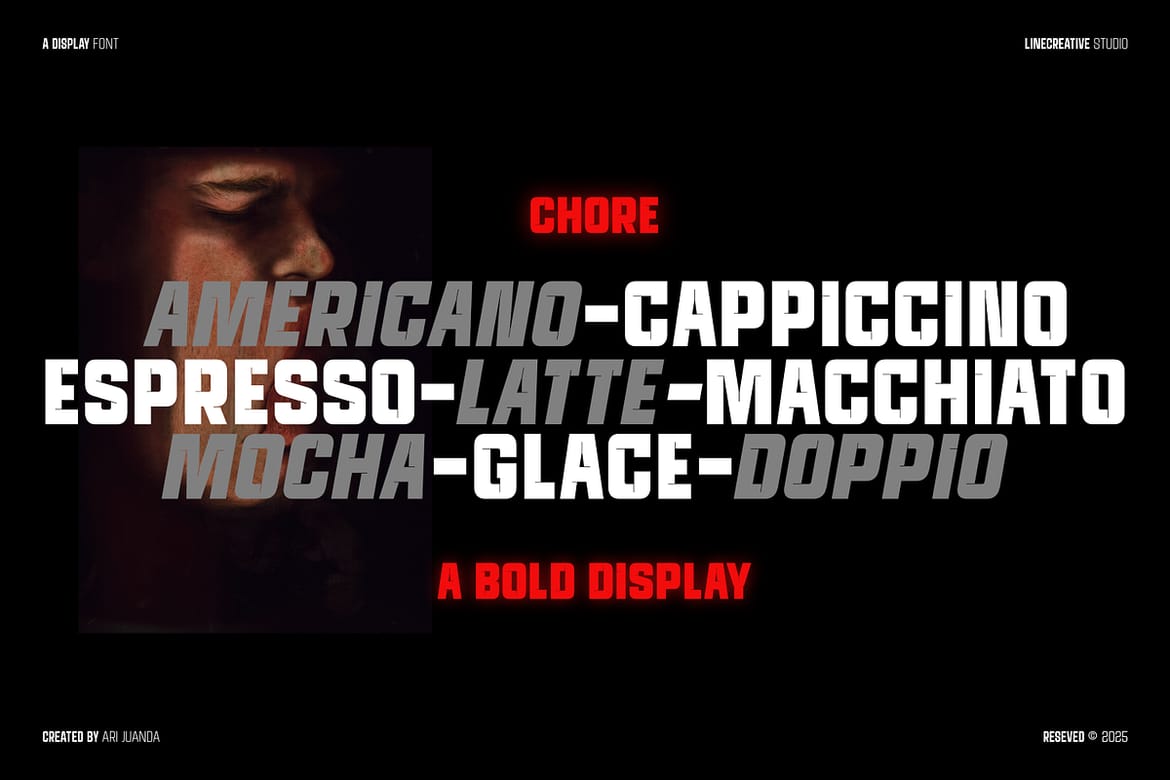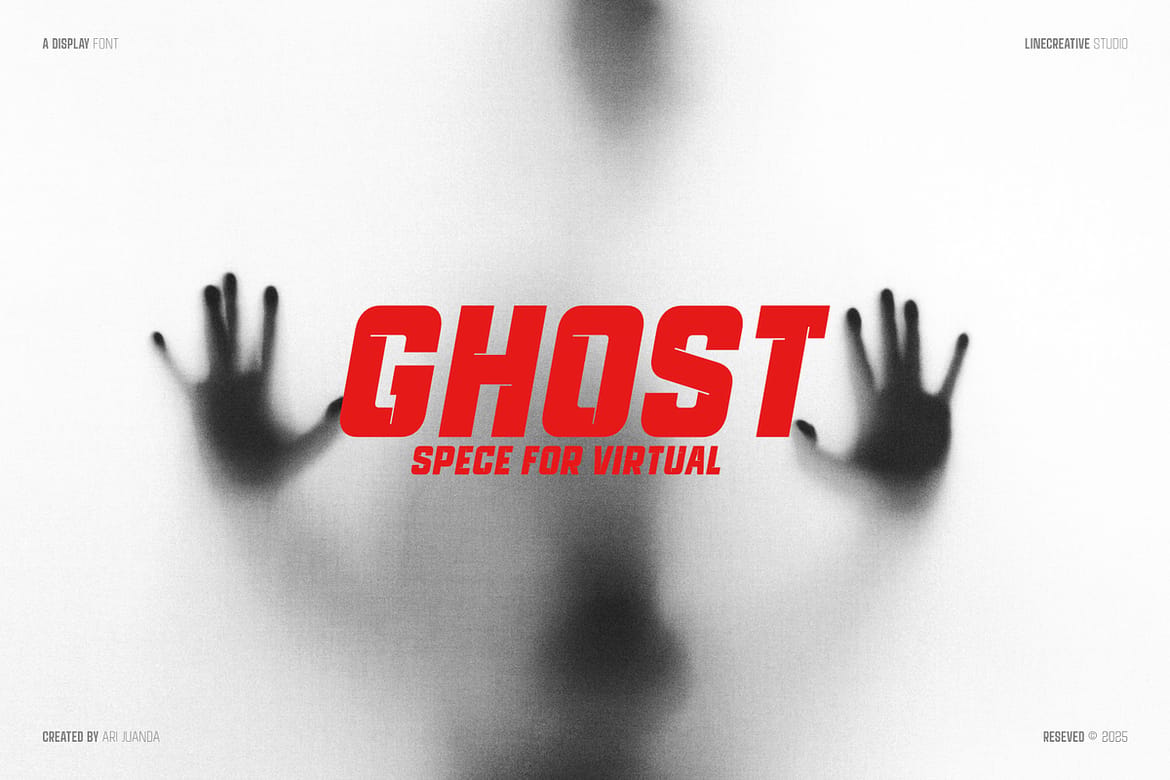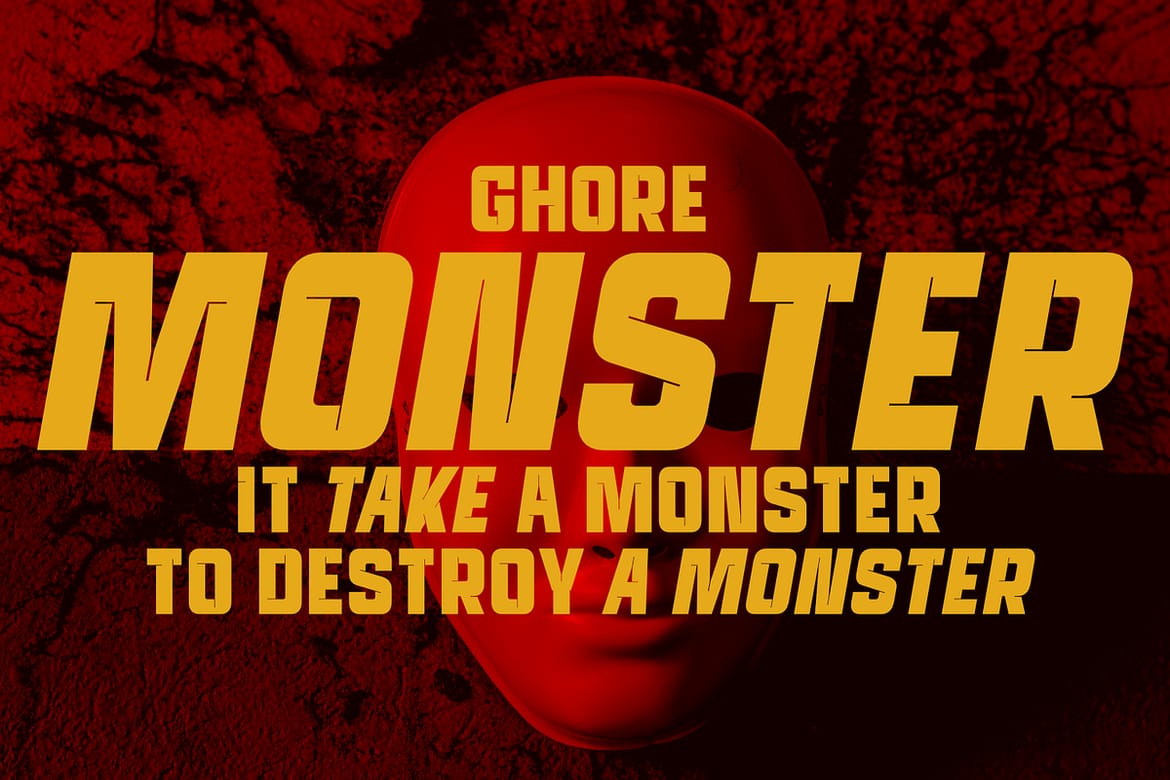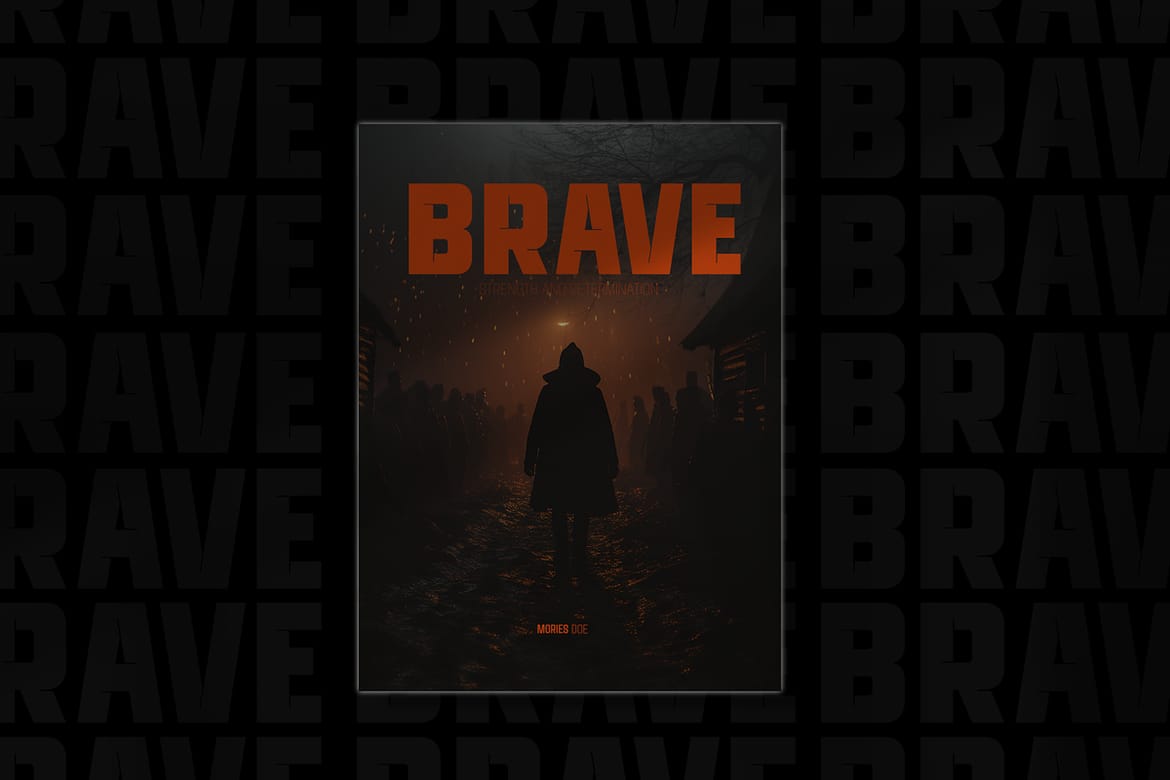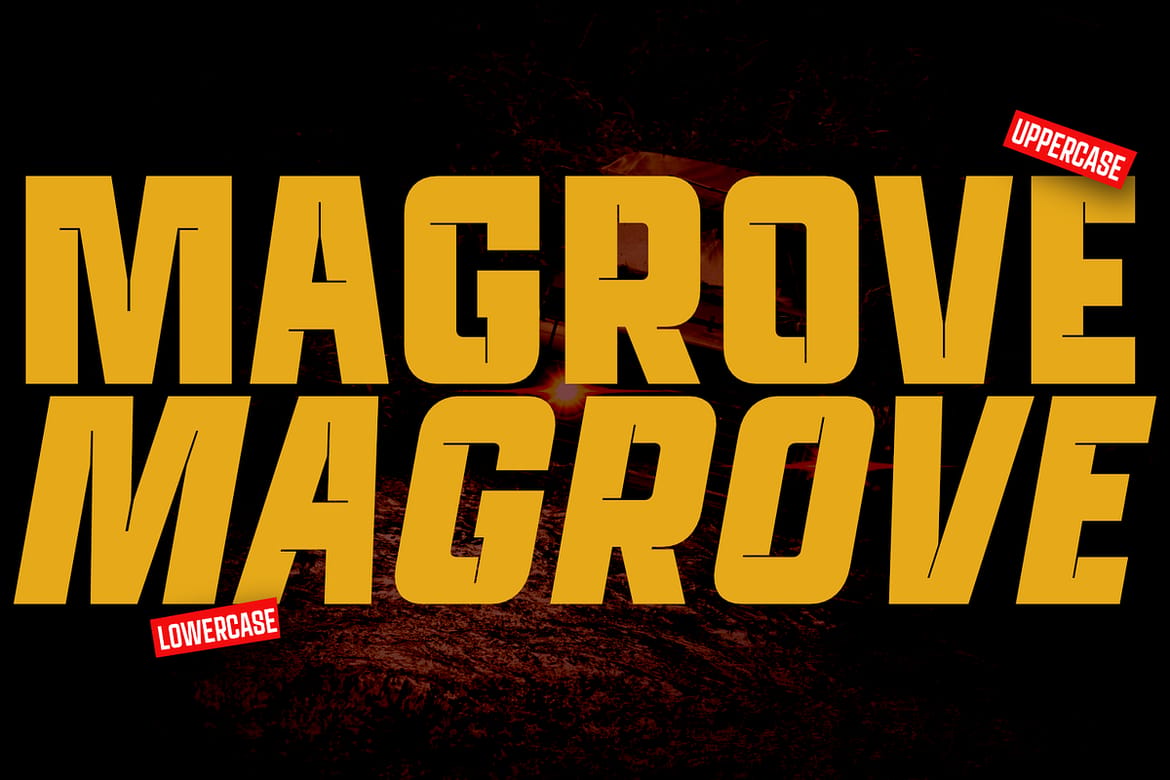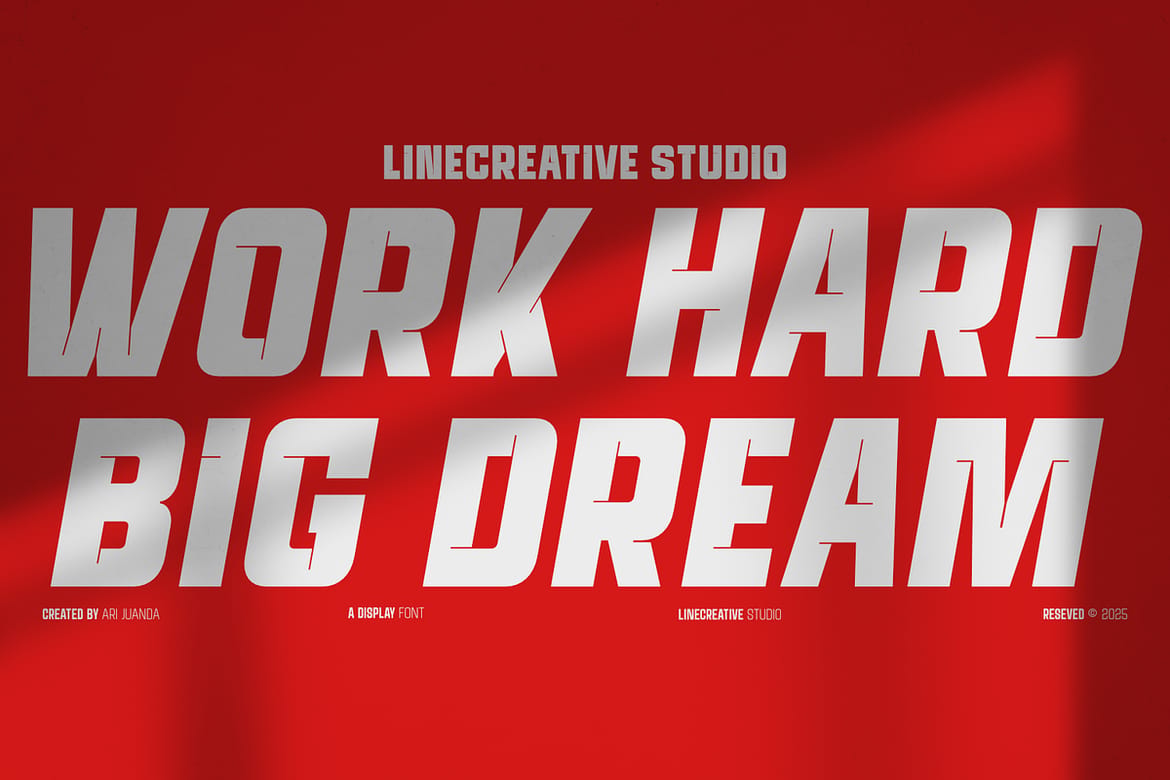
Introducing Ghore! A modern sans display font with a bold style, with sharp curves at each corner of the font body for a sharp and futuristic look. It comes in two variable fonts, regular and oblique, for a sportier and sharper look. Includes TTF, OTF, and WOFF formats, numbers, punctuation, and multilingual support for Western European Latin.